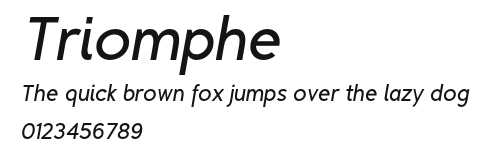
• Font Name: Triomphe
• Font Style: Light-Italic
• Full Font Name: Triomphe Light Italic
• PostScript Name: Triomphe-Light-Italic
• Designer: Jeremie Dupuis
About Triomphe.otf
Triomphe.otf is a modern, elegant sans-serif font designed for ultimate readability and visual harmony. Perfect for branding, headlines, web design, and print materials.